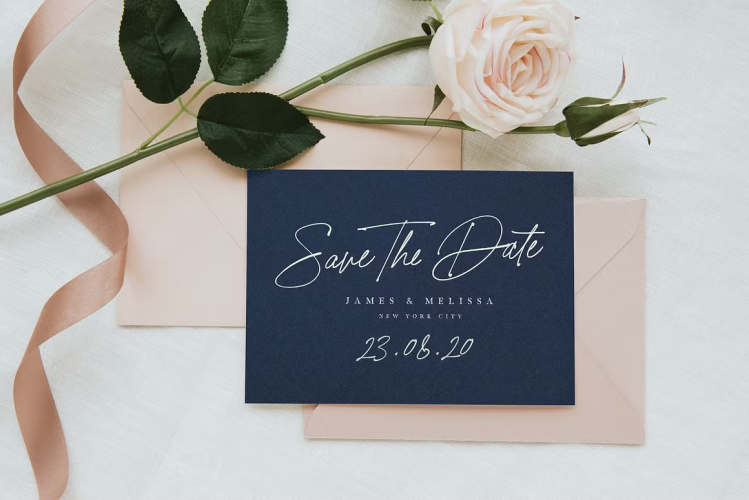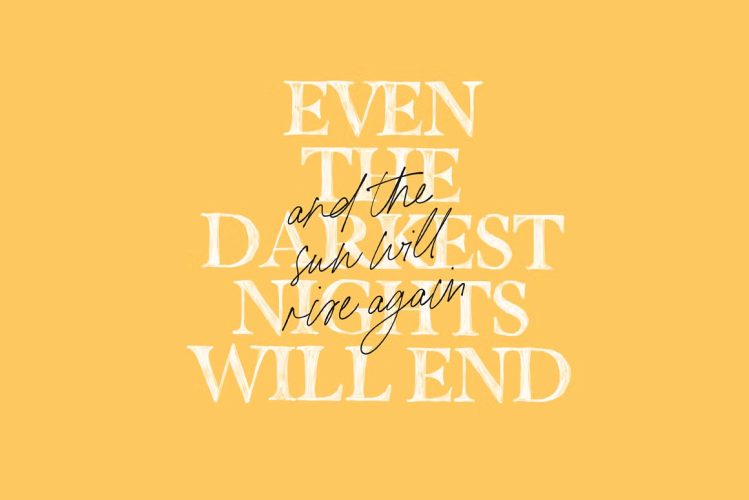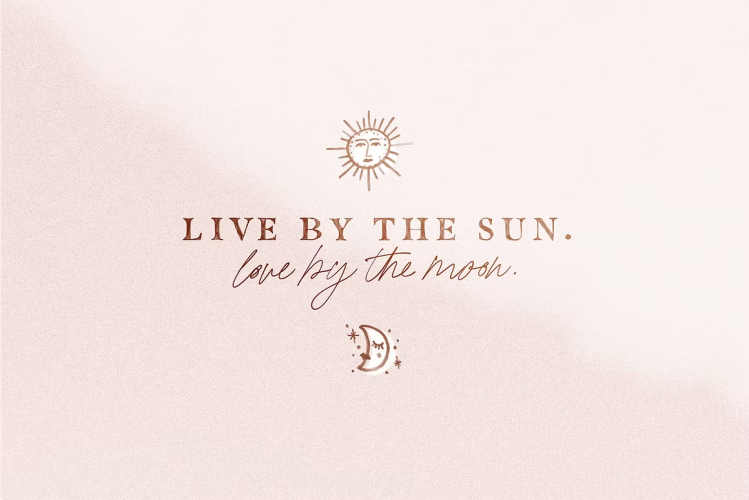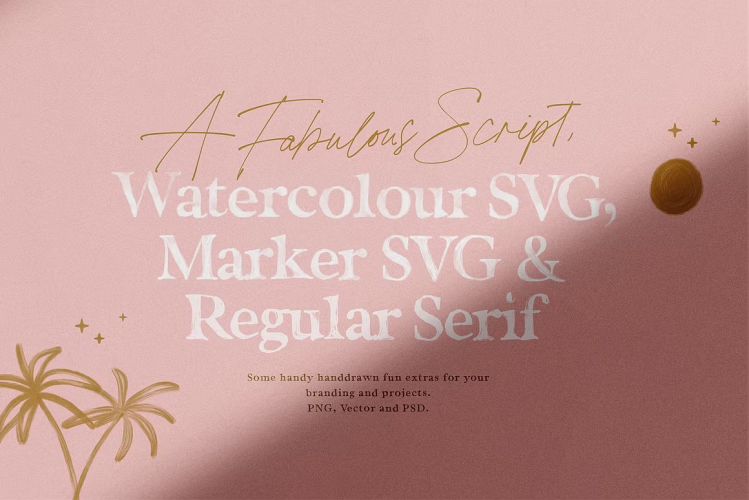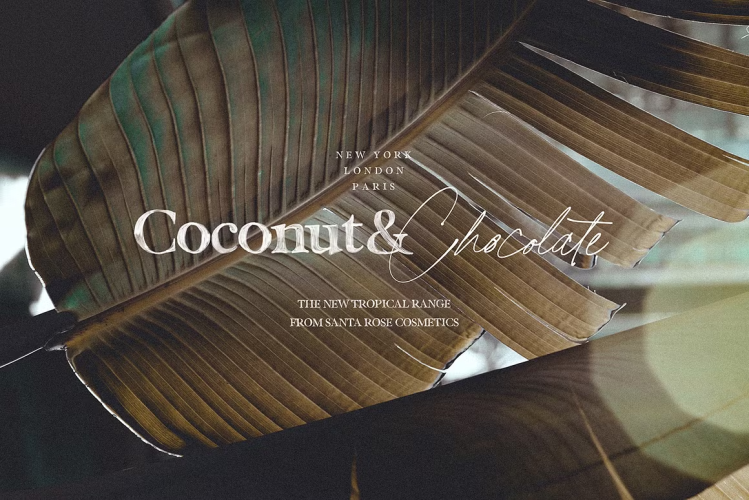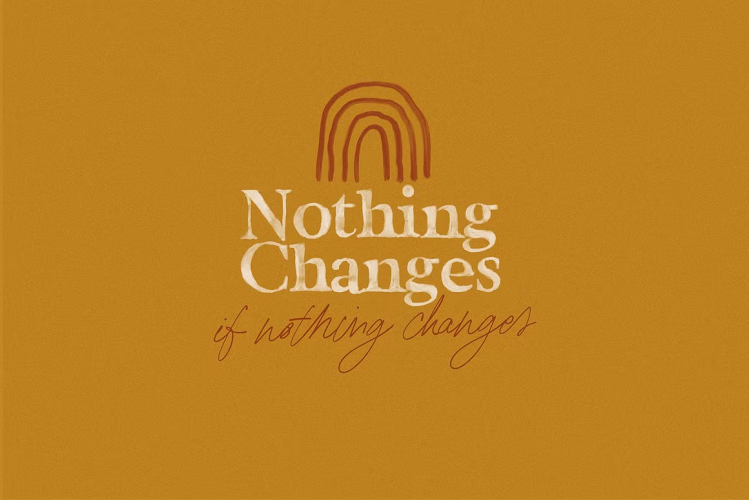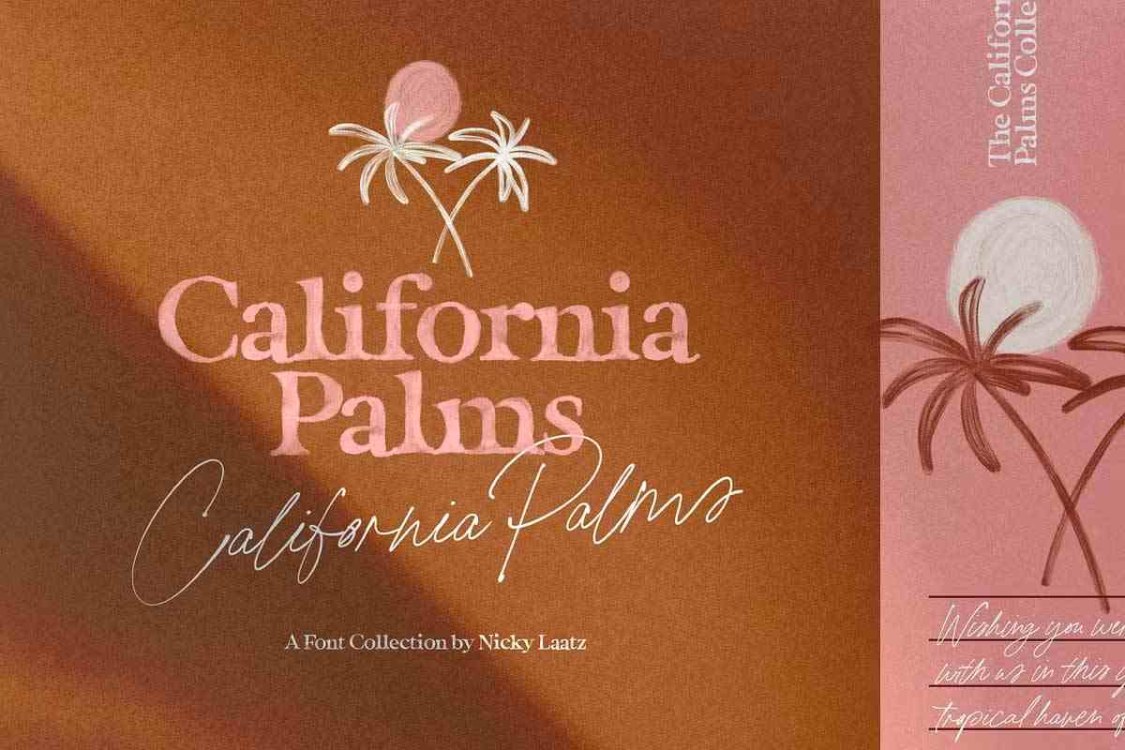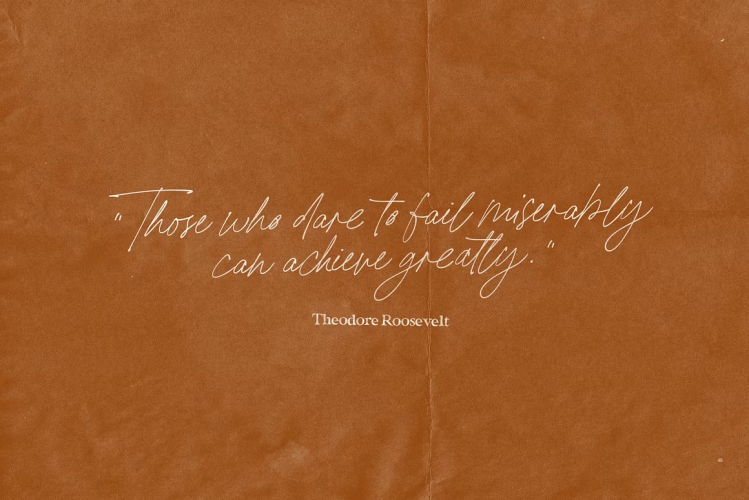
California Palms Font
Put on your sunglasses and grab a tropical drink as you explore the vibrant California Palms Font & Graphics Collection. This comprehensive set features SVG and regular fonts alongside a diverse array of trendy summer-themed graphics. Peek at the previews above to ignite your inspiration and let your creativity flow. To demonstrate the pack’s versatility, a wide range of design suggestions has been included for you to explore—be sure to browse through them all for even more exciting ideas!
The SVG Serif fonts boast real watercolour and marker pen textures, providing an authenticity that regular fonts cannot replicate. Paired beautifully with a stylish script available in SVG and Regular font formats, these fonts enhance each other seamlessly but are equally stunning when used independently.
Where California Palms Font works best
California Palms Font brings a personal, handwritten warmth to invitations, menus and place cards.
Craft brands — coffee, cosmetics, bakery — use scripts like California Palms Font for signature-style logos and labels.
Pair California Palms Font with a plain sans for quotes, stories and Pinterest pins that feel handmade.
What is California Palms Font good for?
California Palms Font is a Script And Handwritten typeface tagged Script, Script And Handwritten, Serif, Sunglasses. It works well for headlines, logos, posters, social media graphics and branding projects that need a distinctive script and handwritten look.